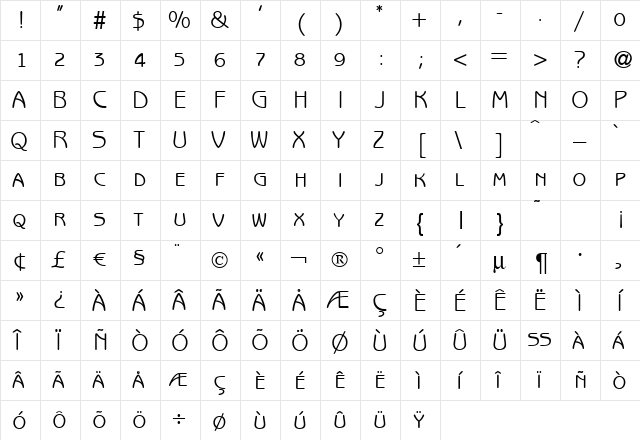
B691-Sans-Smc Regular
B691-Sans-Smc offers clean, dependable letterforms without strong stylistic allegiance, making it a practical choice for designers who need flexibility.